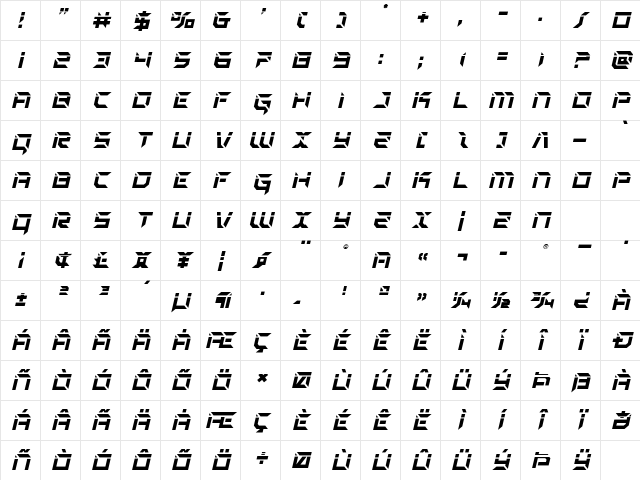
Complete Zero Prime Laser Italic Italic glyph index. Displaying only characters natively supported by Zero Prime Laser Italic Italic font.
Zero Prime Laser Italic is a composed and adaptable typeface that performs quietly and consistently across a wide range of design contexts. The slanted form adds forward momentum and visual energy.